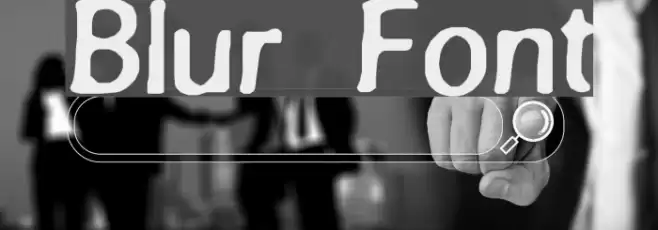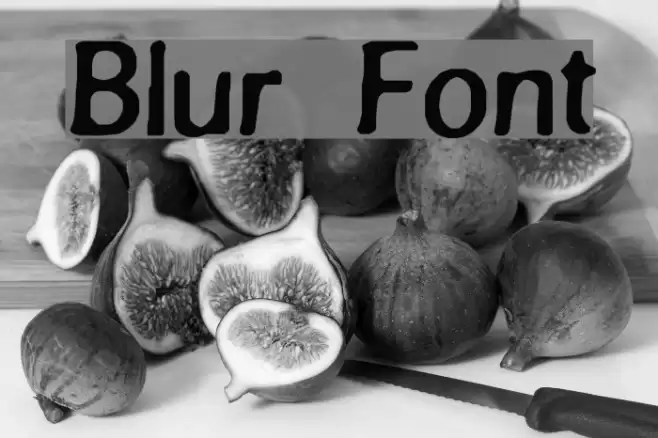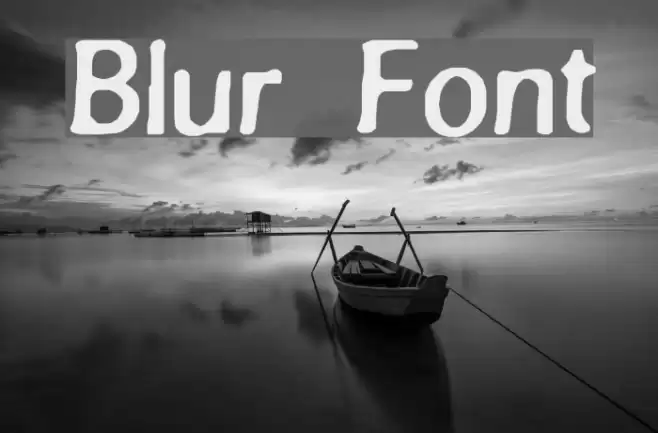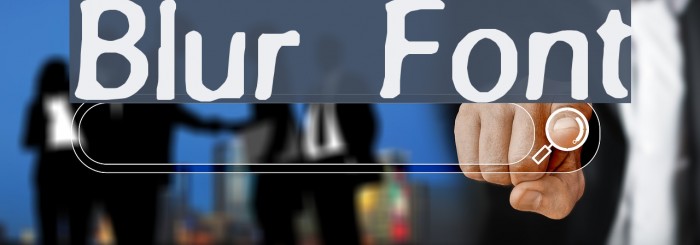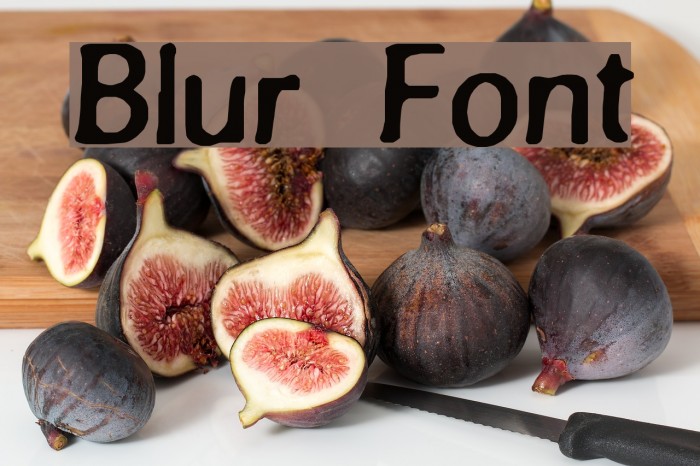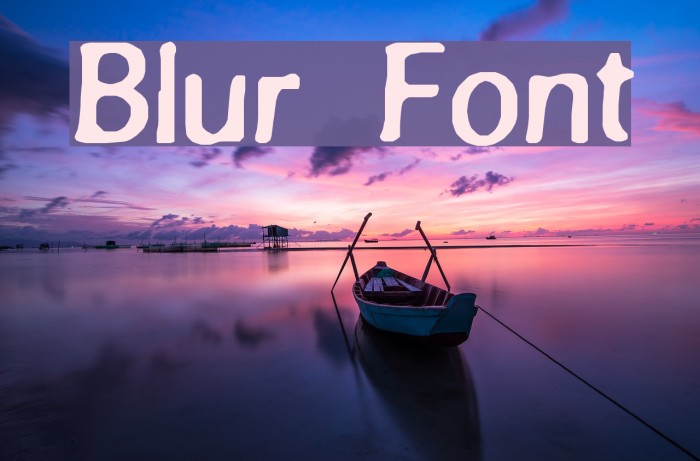
Blur
This font features a playful and slightly irregular design, giving it a hand-drawn appearance. The characters have a whimsical quality with uneven strokes and varying thicknesses, creating a lively and dynamic look. The uppercase letters are bold and prominent, while the lowercase letters maintain a consistent style with a touch of quirkiness. The numbers and special characters follow the same playful aesthetic, making this font suitable for creative and informal projects. Its unique style adds a personal touch to any design, making it stand out with its distinct character.
A playful, hand-drawn font with irregular strokes and a whimsical style.
- Proposed Projects: Ideal for children's books, greeting cards, playful branding, and creative posters.
- Overall Style: Decorative
- Use Case: Headlines, Logos, Posters